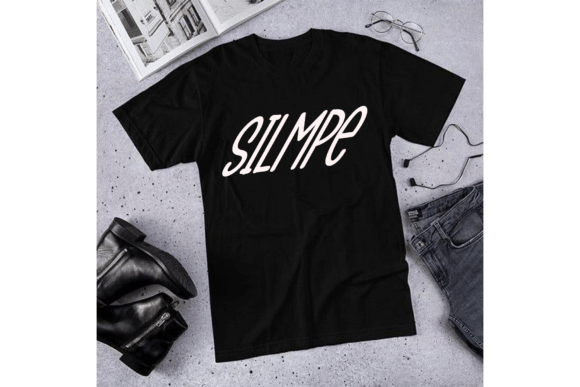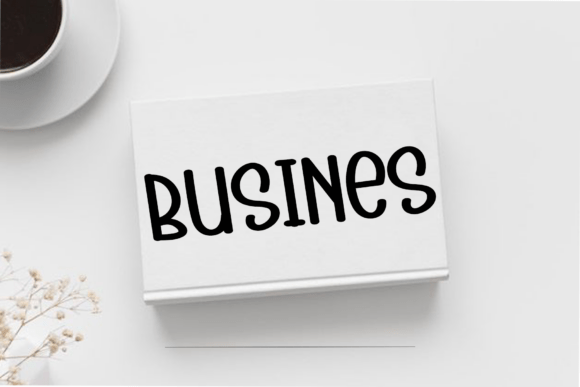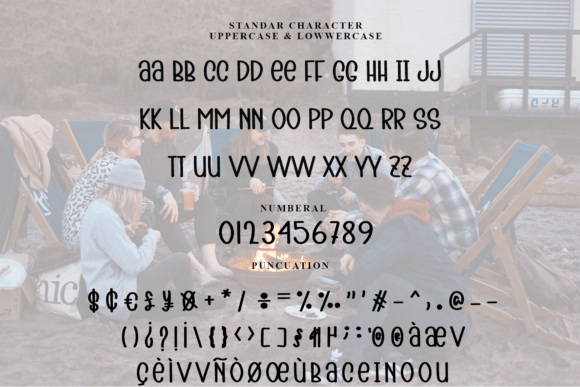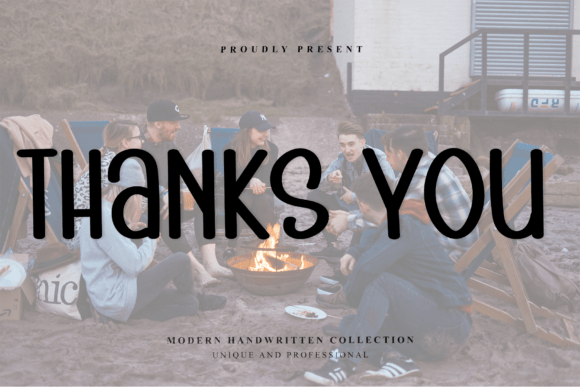
Introducing Hangout Font: The Minimal and Neat Choice for Your Creative Projects
Are you tired of using the same old fonts for your design projects? Look no further than Hangout Font, a minimal and neat font that can elevate your creative ideas to the next level. With its clean and simple design, Hangout Font is versatile enough to be matched with an incredibly large set of projects, making it the perfect addition to your font collection.
The Characteristics of Hangout Font
Hangout Font is a sans-serif font, which means it doesn’t have the small lines or flourishes at the end of the letters. This gives it a clean and modern look that’s perfect for a wide range of design projects. The font is also highly legible, making it easy to read even at small sizes. Whether you’re designing a logo, a brochure, or a website, Hangout Font is a great choice.
Why Choose Hangout Font?
So, why should you choose Hangout Font for your design projects? Here are just a few reasons:
- Versatility: Hangout Font is incredibly versatile and can be used for a wide range of design projects, from logos and branding to websites and marketing materials.
- Legibility: The font is highly legible, even at small sizes, making it perfect for body text and captions.
- Modern look: The clean and simple design of Hangout Font gives it a modern look that’s perfect for contemporary design projects.
- Ease of use: Hangout Font is easy to use and can be easily paired with other fonts to create a unique and cohesive look.
How to Use Hangout Font in Your Design Projects
Hangout Font can be used in a variety of design projects, including:
- Logos and branding: Use Hangout Font to create a clean and modern logo that’s perfect for your brand.
- Websites: Hangout Font is a great choice for website design, particularly for headings and body text.
- Marketing materials: Use Hangout Font for brochures, flyers, and other marketing materials to give them a modern and professional look.
- Social media graphics: Hangout Font is perfect for social media graphics, including Facebook posts, Instagram stories, and Twitter headers.
Tips for Pairing Hangout Font with Other Fonts
Hangout Font can be easily paired with other fonts to create a unique and cohesive look. Here are a few tips for pairing Hangout Font with other fonts:
- Pair with a serif font: Pairing Hangout Font with a serif font can create a nice contrast and add visual interest to your design.
- Pair with a script font: Pairing Hangout Font with a script font can add a touch of elegance and sophistication to your design.
- Experiment with different font sizes: Experimenting with different font sizes can help you create a visually appealing hierarchy of information in your design.
Hangout Font is a minimal and neat font that’s perfect for a wide range of design projects. With its clean and simple design, Hangout Font is versatile enough to be matched with an incredibly large set of projects, making it the perfect addition to your font collection. Whether you’re a designer, a crafter, or just someone who loves typography, Hangout Font is a great choice for any design project.